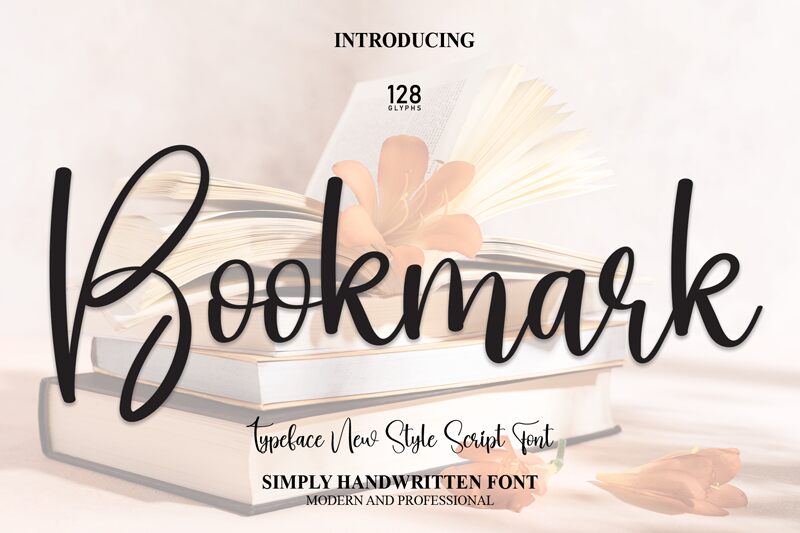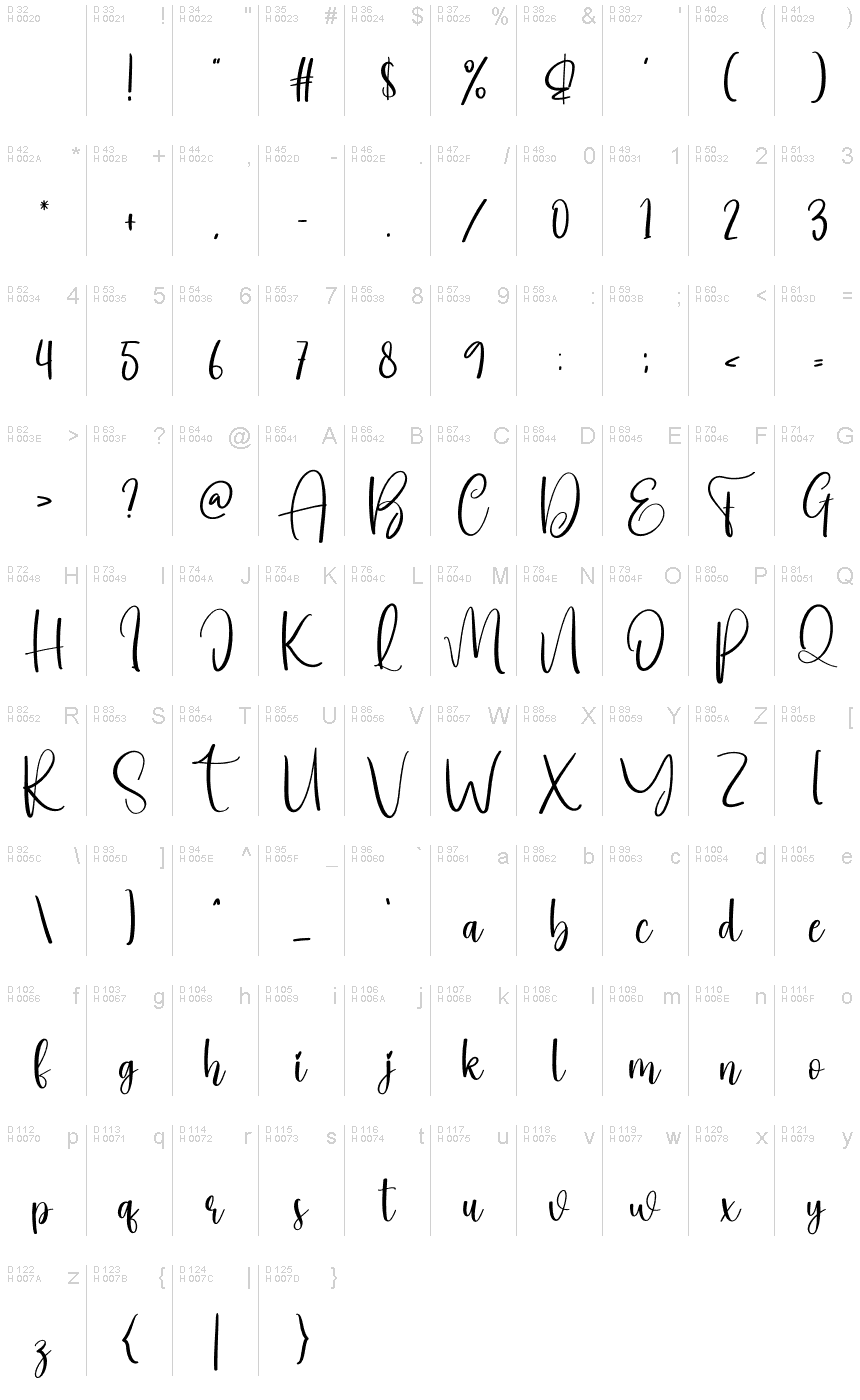
Bookmark
Bookmark, a handwritten gem from the creative well of Scratchones, embodies a semi-light weight that effortlessly balances delicacy with readability. The font exudes an aesthetic appeal that captures the essence of personalized script, making it feel intimate and approachable. Each stroke in Bookmark's characters reveals a crafted imperfection reminiscent of classic handwriting, yet it maintains a consistency that ensures clarity and elegance.
Perfect for projects that demand a touch of human warmth without sacrificing sophistication, Bookmark is versatile in its applications. From bespoke invitations to branding materials or editorial designs where personality is key, this font stands out for its graceful fluidity and distinctive character. With Bookmark, designers can infuse their work with the charm of handcrafted artistry while maintaining professional finesse.